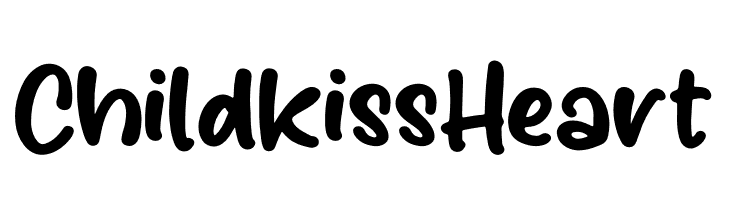
( Fonts by Perspectype Studio )
Playful handwritten font with rounded edges.
( Fonts by www.aenigmafonts.com )
A bold, outlined font with a playful, hand-drawn style.
A modern, italic font with geometric precision and dynamic style.
A bold, italic font with dynamic, slanted characters and thick strokes.
A bold, italicized font with a futuristic and dynamic style.
( Fonts by www.houseoflime.com )
An ornamental typeface with intricate Art Nouveau floral designs.